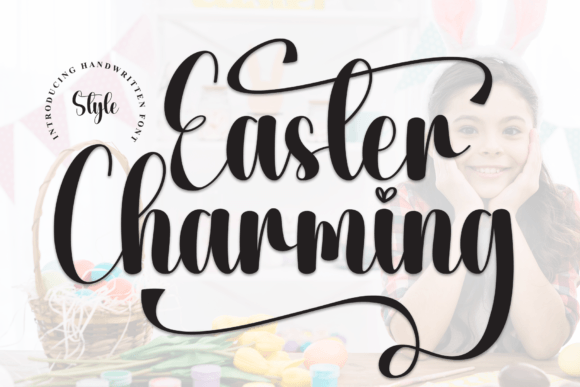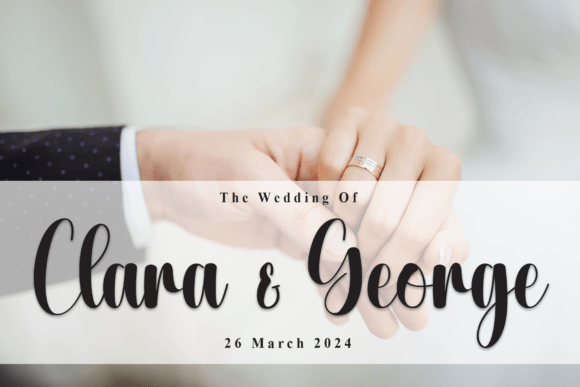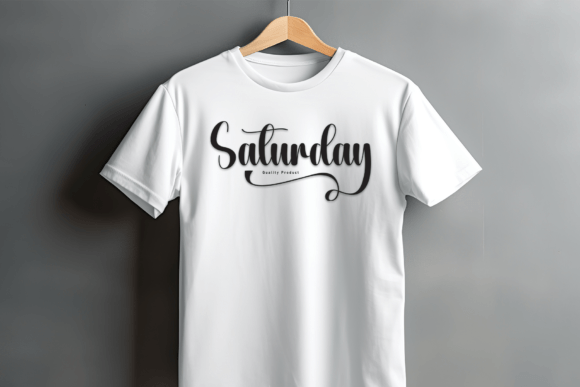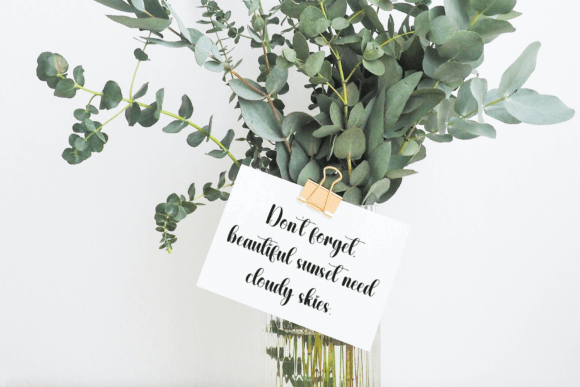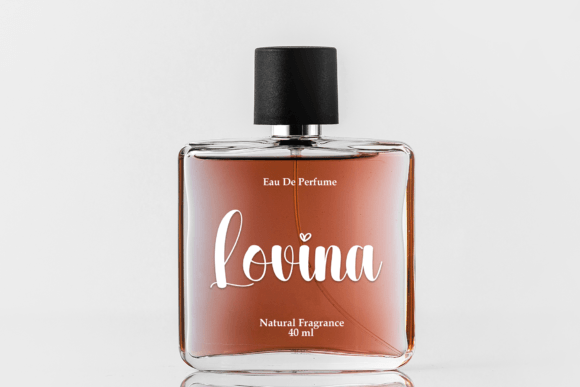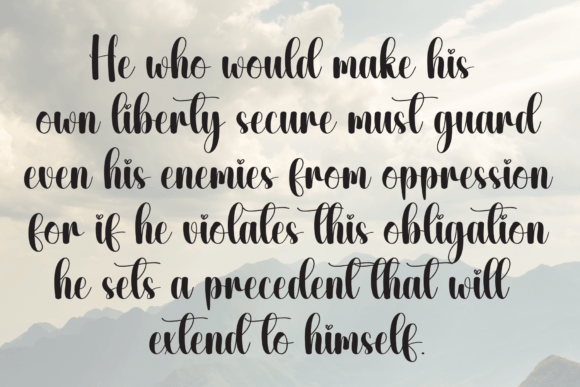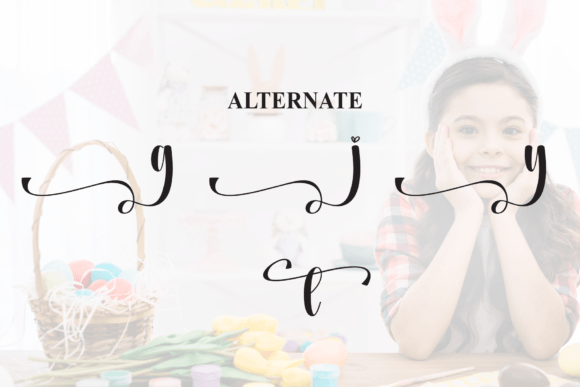
Discover the Magic of Easter Charming Font
As a designer, there’s nothing quite like the thrill of bringing a creative idea to life. Whether it’s a wedding invitation, a heartfelt thank you card, or a stunning logo, the right font can make all the difference. I still remember the moment I stumbled upon Easter Charming Font – its elegant script style and whimsical charm instantly captured my heart.
With its versatility and timeless beauty, Easter Charming Font is the perfect addition to any design project. This stylish and incredibly elegant script font is designed to add a handwritten touch to your work, making it perfect for wedding invitations, thank you cards, quotes, greeting cards, logos, business cards, and more.
As a designer, you know how valuable a high-quality font can be. Easter Charming Font is a game-changer, offering a unique and sophisticated look that’s sure to elevate your designs and leave a lasting impression.
- Unique Characteristics: Hand-drawn, whimsical design with intricate details and ornaments
Easter Charming Font Review
I recently had the chance to work with the Easter Charming Font, and I must say it’s a lovely addition to any project that needs a touch of springtime whimsy. Here are my honest thoughts:
- The Easter Charming Font is perfect for creating Easter-themed designs, such as invitations, party decorations, and social media graphics.
- The font is highly customizable, with a range of sizes, colors, and styles that can be easily adjusted to suit your design needs.
- The font’s playful, handwritten feel adds a touch of personality to any design, making it perfect for creative projects like craft blogs or social media influencers.
- The font may not be suitable for formal or professional projects, as its playful nature may come across as unprofessional.
- The font’s limited character set may make it difficult to use for longer blocks of text, such as articles or essays.
- The font’s Easter theme may limit its use to a specific time of year, which could make it less versatile than other fonts.
The Easter Charming Font is a fun and playful addition to any design project. While it may have some limitations, its customizability and whimsical feel make it perfect for creative projects that need a touch of springtime magic.
For the most charming results, pair the Easter Charming Font with pastel colors and floral patterns.
1. Easter-themed invitations and decorations.
2. Spring-themed greeting cards and gift tags.
3. Whimsical children’s book covers and illustrations.